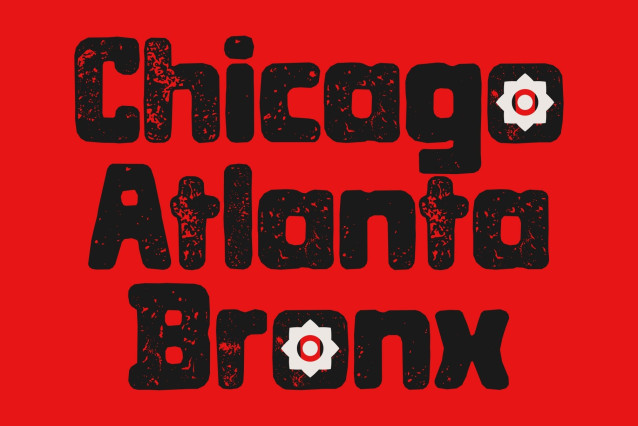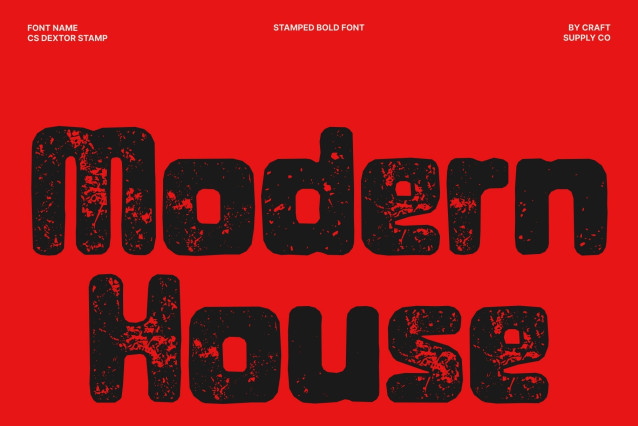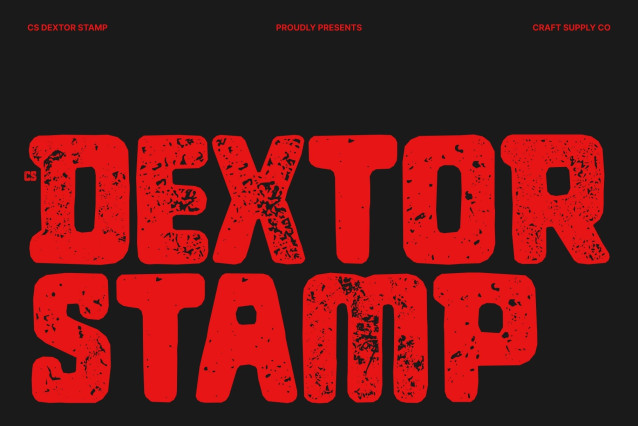
Dextor Stamp Font
CS Dextor Stamp – Bold Sans Serif with Confident Presence
This is a bold sans serif font designed to make a powerful impression. Its solid, rounded shapes give each character a confident and approachable personality, ensuring your text stands out in any design context while maintaining clarity and visual strength.
Vintage Stamp Texture and Artistic Character
Enhanced with a distinctive stamp effect, this font carries a subtle distressed texture that introduces a handcrafted, vintage feel. The worn details add depth and authenticity, giving each letter an artistic, tactile quality reminiscent of traditional ink stamping and classic print techniques.